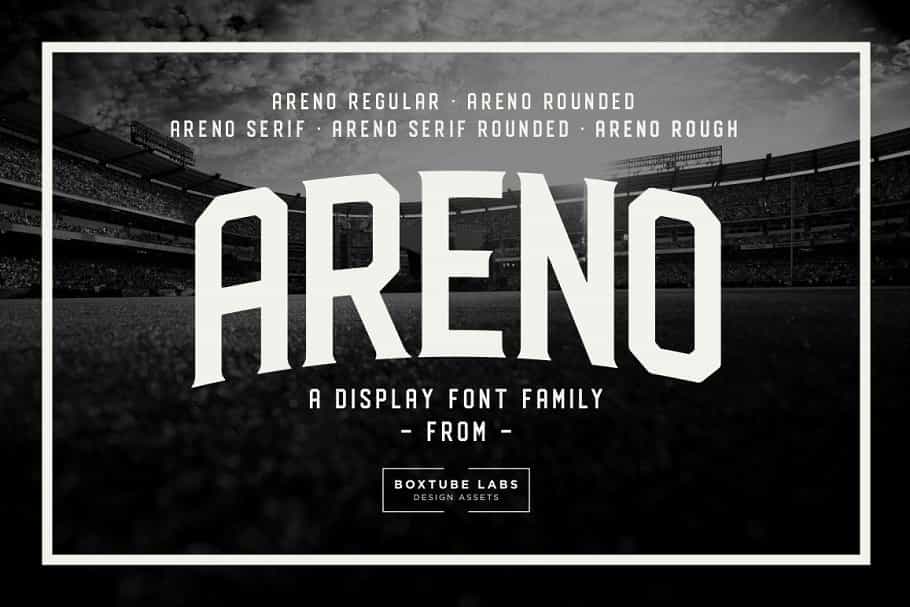
Introducing Areno! It was developed by BoxTube Labs, this is a high-quality font that can be bought on creativemarket but it was also great and now it’s free for download. The first font family from BoxTube Labs. ARENO – the all caps display font family that has 5 styles. Areno Regular, Areno Rounded, Areno Serif, Areno Serif Rounded and so on are the fonts which are suitable for headlines. logos posters & apparel design.